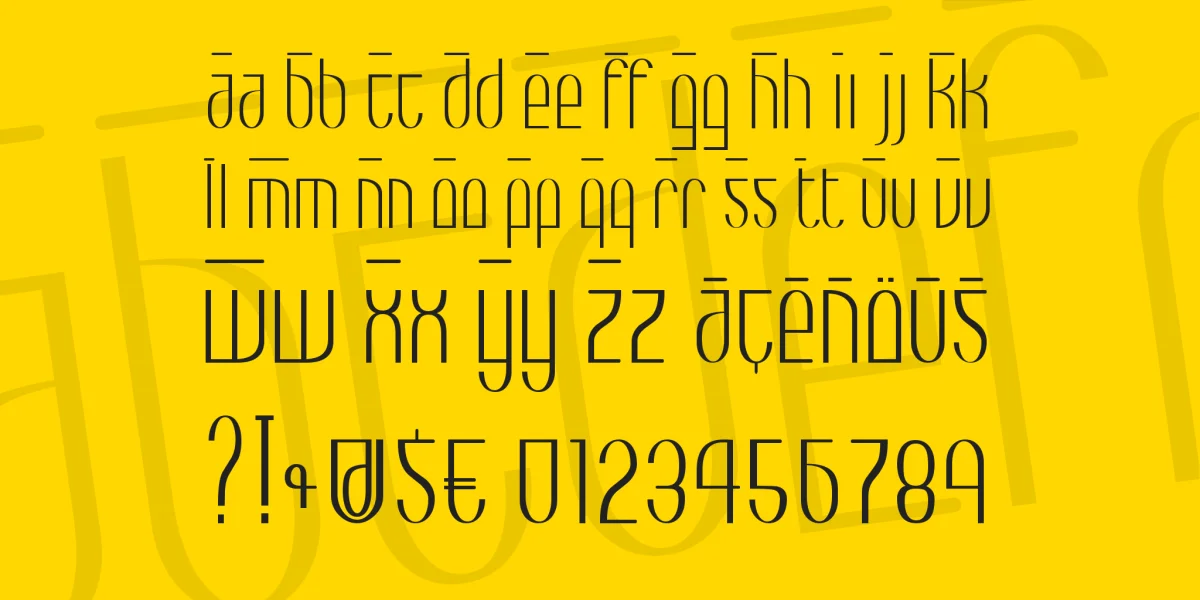
Max is a light typeface with an architectural strength and solidity. Even the bold weight also included here has a delicacy of line. The upper case letters are overlined versions of the lower case. The fonts are a toast to the birth of Max Herrmann.